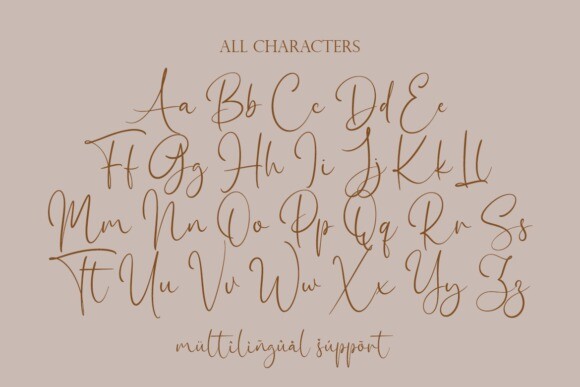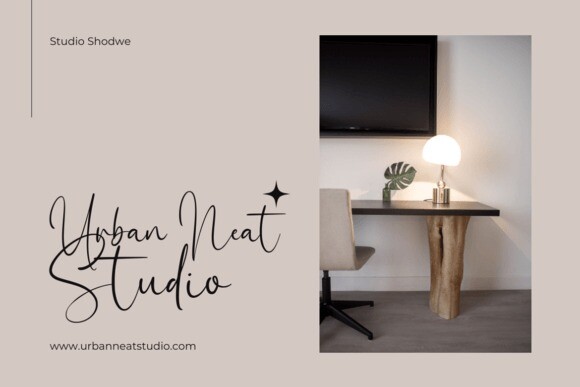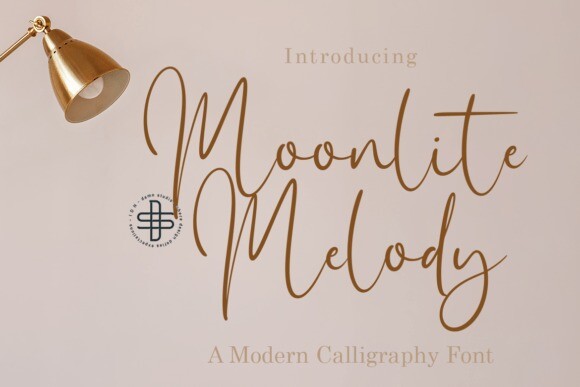
Moonlite Melody Font
Moonlite Melody Font, an exquisite script font designed to elevate your artistic ventures. Imbued with the elegance and enchantment of the moon’s gentle dance in a quiet night, this font naturally weaves a touch of sophistication into any design. The fluid strokes and delicate curves of Moonlite Melody create breathtaking visual arrangements in products like exclusive wedding stationery and luxury branding paraphernalia. It’s an open invitation to explore the endless realms of creativity, from composing elegant quotes to executing grand scale global projects – the supportive multi-language feature makes it possible. Ranging from extensive ligatures to alternate characters, this font offers a plethora of components, providing the necessary customization capabilities. Plus, with the platform-dissolving PUA encoding, compatibility is no more a worry. Unlock the enchanting potential of Moonlite Melody, as it leads your creative genius through the captivating realms of the moonlit night.